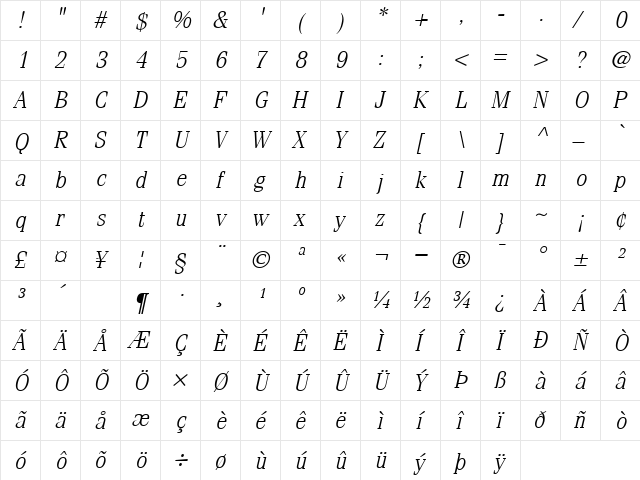
Fenice LightOblique
Design Context for Fenice Typeface
Fenice offers clean, dependable letterforms without strong stylistic allegiance, making it a practical choice for designers who need flexibility. The slanted form adds forward momentum and visual energy. The delicate stroke weight brings airiness and refinement to layouts.
Pro Tip: Use Fenice for emphasis, pull quotes, and subheadings where its slanted energy can add rhythm to the layout.